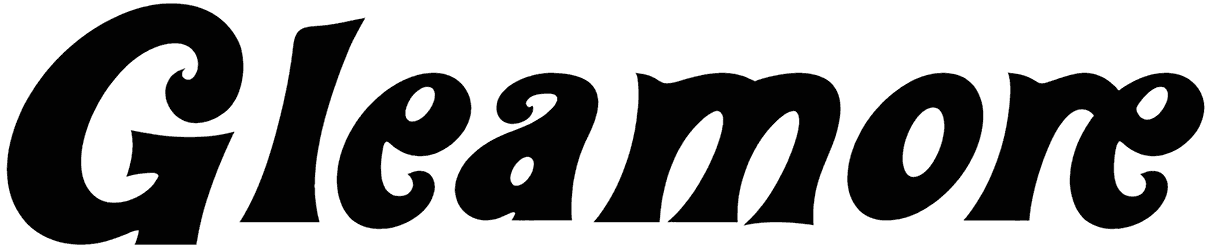
Gleamore Font
Designed byGlyphStyle
Show your creativity with the new groovy font, Gleamore, that gives off a retro touch to your work. It has chunky characters, which makes it more eye-catching and memorable. You’d better know that it doesn’t support numbers. This font will be awesome for designing movie posters, book covers, logotypes, advertisements, and T-shirt prints.